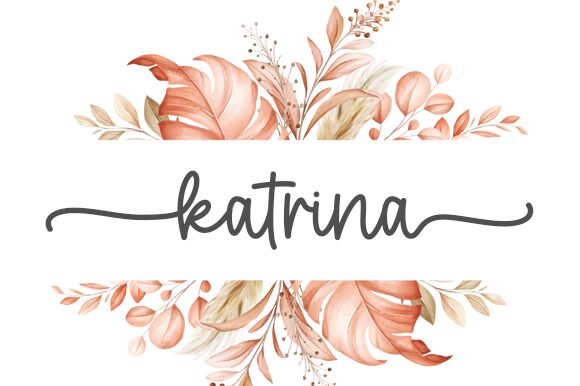
Katrina, a charming handwritten font by Nirmala Creative, adds a delightful touch to any project. With its semi-light weight, this font exudes elegance and grace. Perfect for wedding invitations, feminine branding projects, and lifestyle blogs, Katrina brings a personal and intimate feel to your designs. Its flowing strokes and organic curves create a warm atmosphere that is ideal for fashion magazines, beauty products packaging, and romantic novels. Let Katrina elevate your creative endeavors with its unique blend of sophistication and playfulness.
Katrina
Nirmala Creative